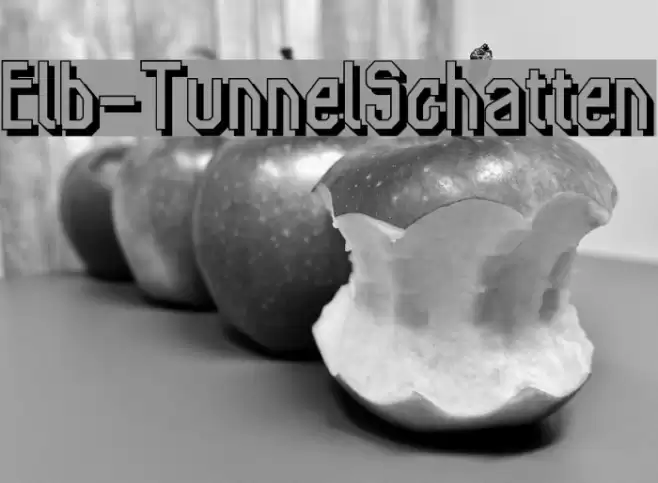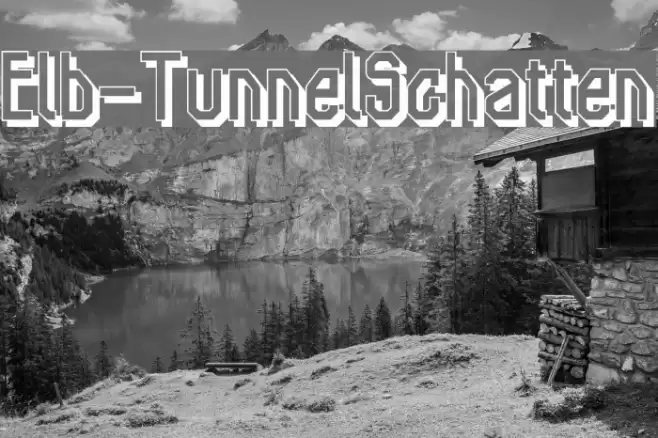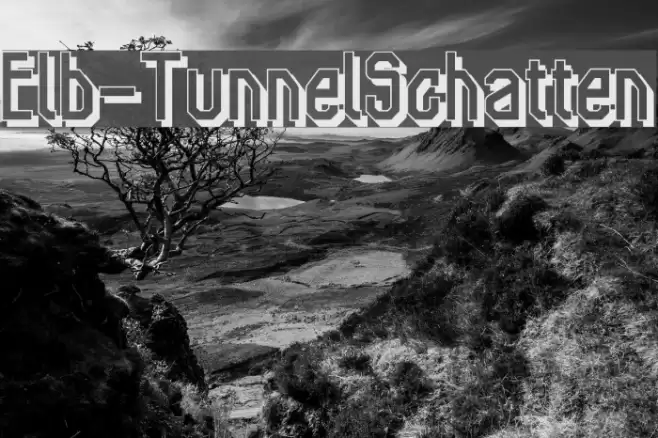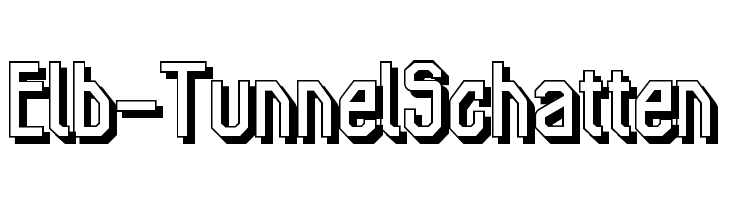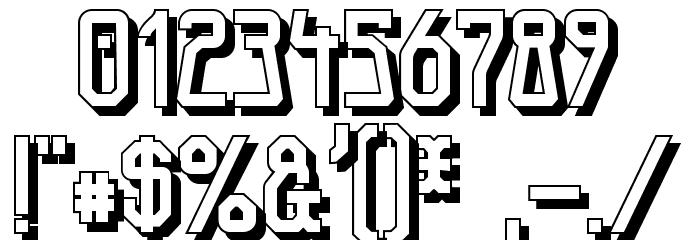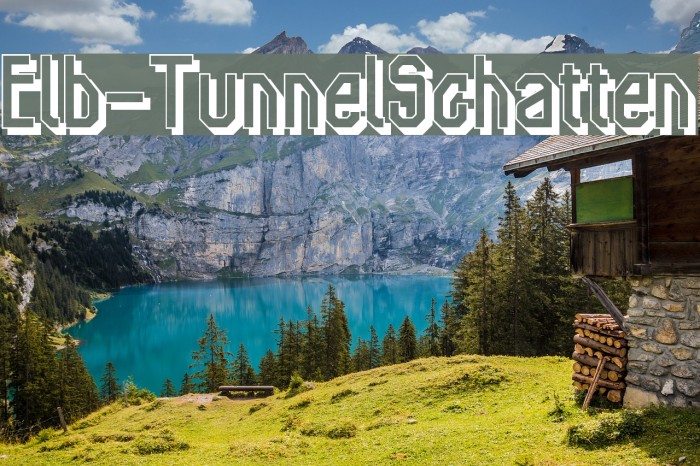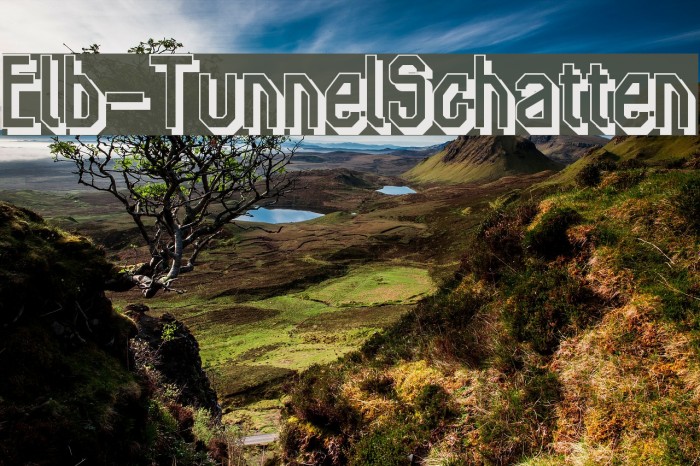
Elb-TunnelSchatten Font
Elb-TunnelSchatten Description
This font features a bold, shadowed design that gives a three-dimensional effect, making each character stand out with a striking presence. The uppercase and lowercase letters maintain a consistent geometric structure, with sharp angles and clean lines. The numbers and special characters follow the same stylistic approach, ensuring uniformity across all glyphs. The shadow effect adds depth, creating a visually engaging experience. This font is ideal for projects that require a strong visual impact, such as posters, headlines, and branding materials.
A bold, shadowed font with a three-dimensional geometric style from Uncategorized fonts.
- Proposed Projects: Ideal for posters, headlines, branding, and any project needing a strong visual impact.